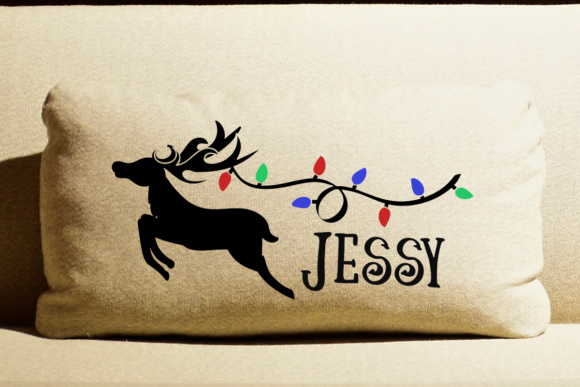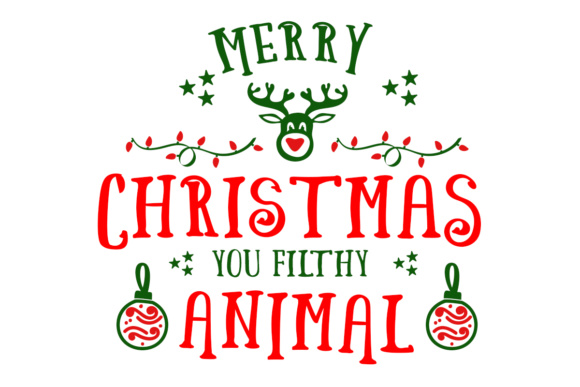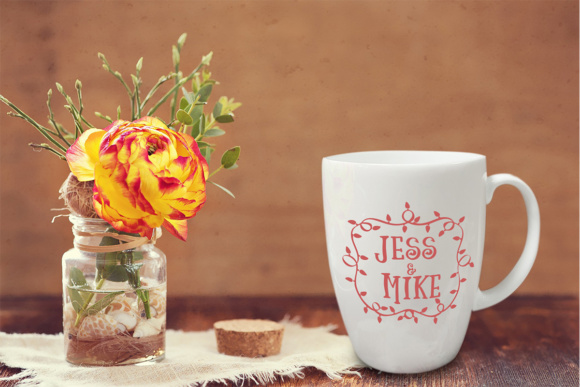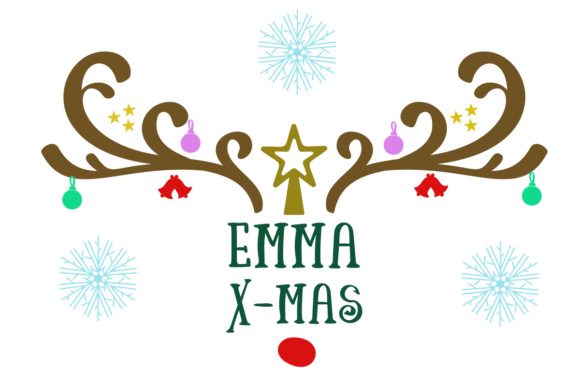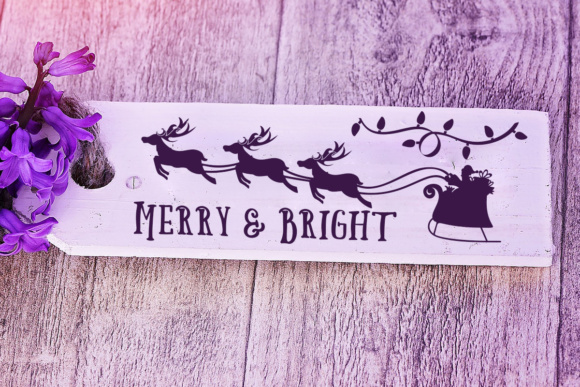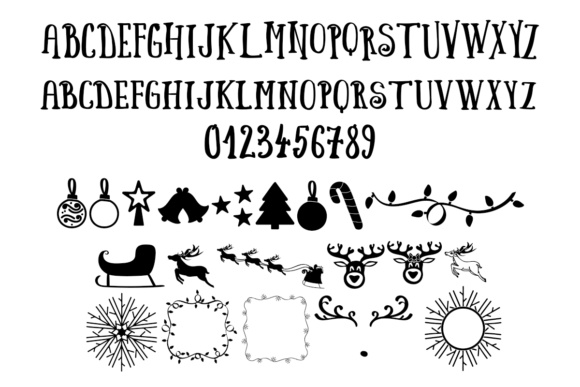
Crazy Serif Font
About Crazy Serif Font
Create beautiful designs or crafts with this hand lettered font. It comes with an extra set of Christmas dingbats as a bonus to spice up your designs.